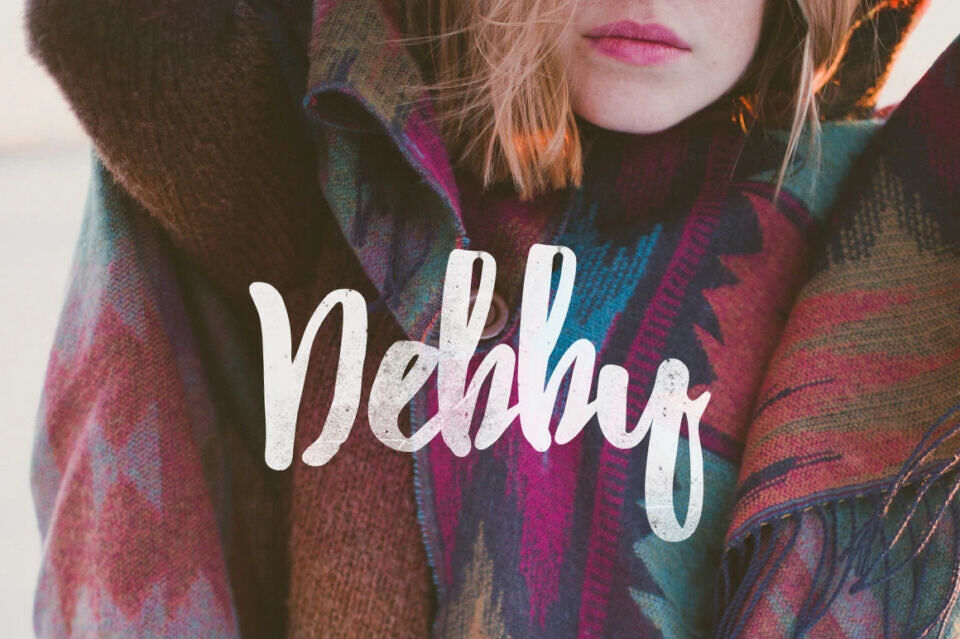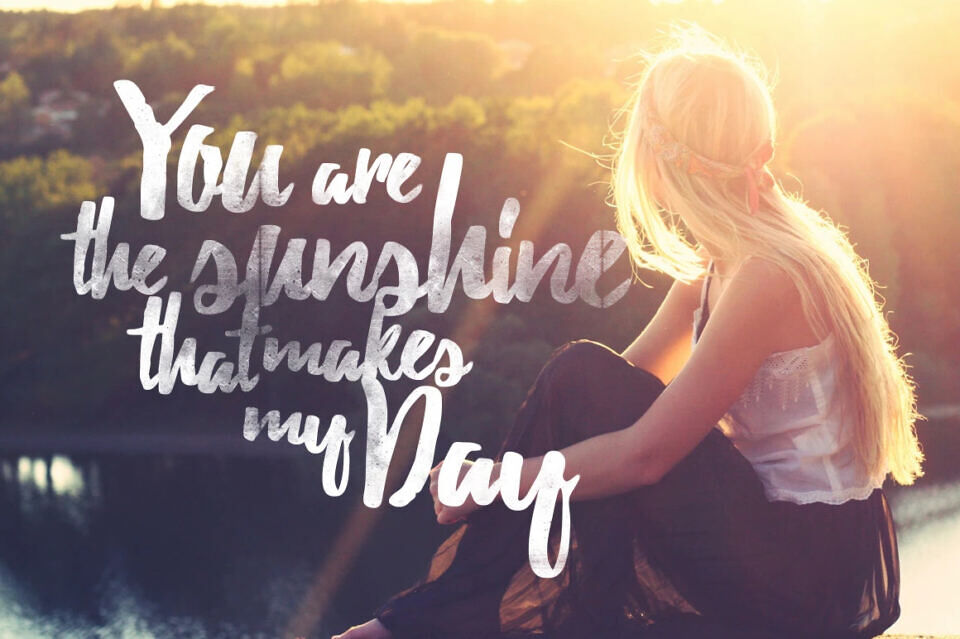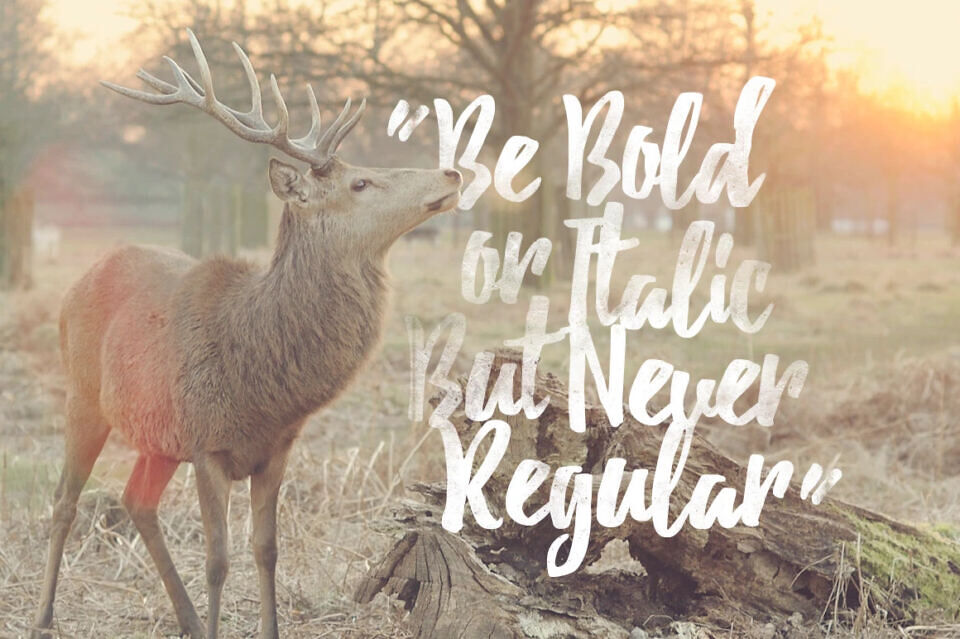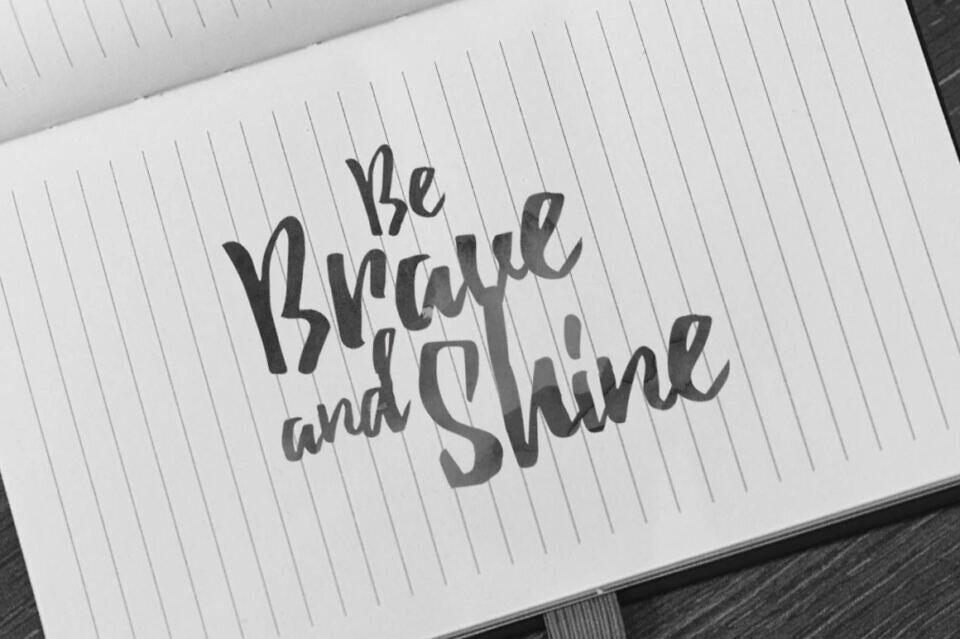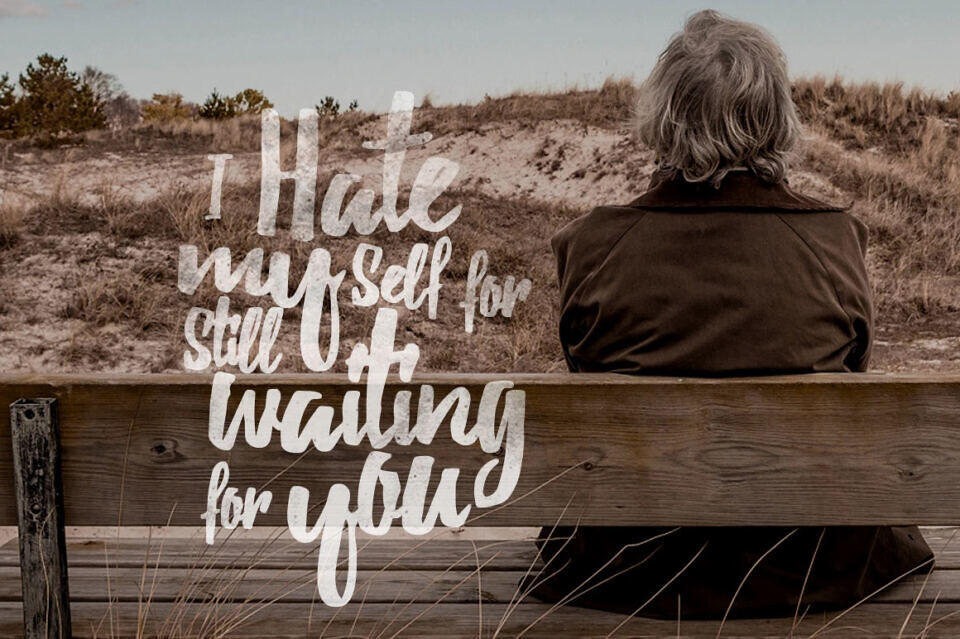
Debby is a hand-drawn brush font designed to make your works look natural. Debby free font designed to feel personal and imperfect; the irregular bouncy characters and the rough shapes speaks by itself. You can use it for anything from wedding invitations, quotes to posters, logos, greeting cards, etc.